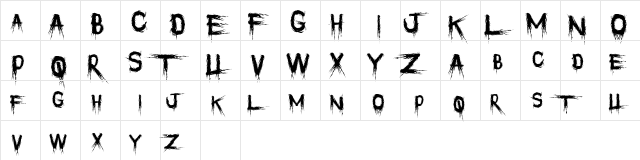
Philophobia Regular
| Foundry | Font Monger |
| Designer | Chris Vile |
Design Context for Philophobia Typeface
Philophobia is a composed and adaptable typeface that performs quietly and consistently across a wide range of design contexts.